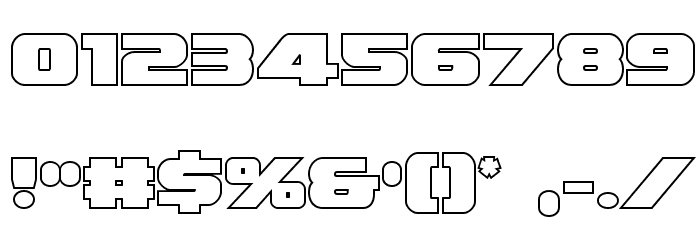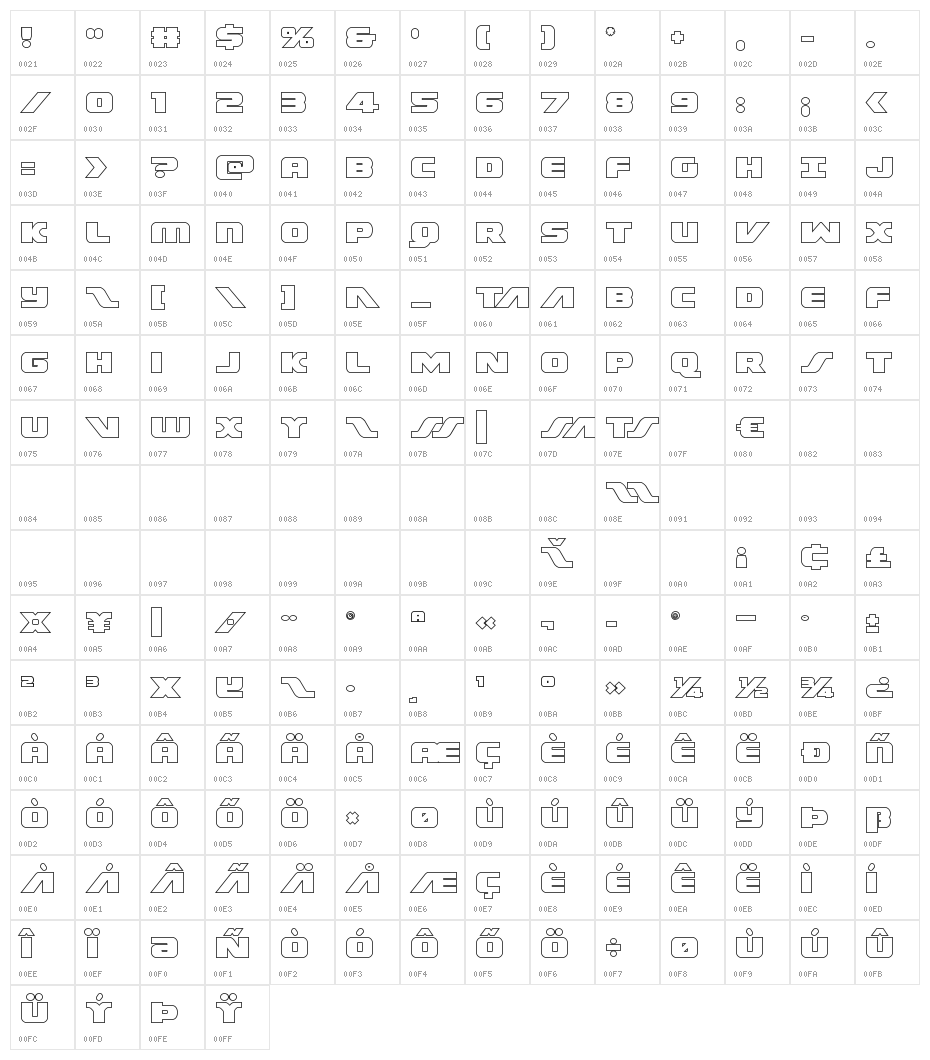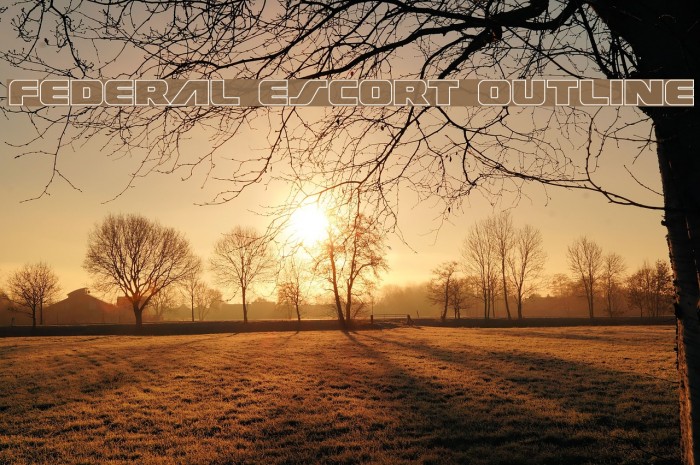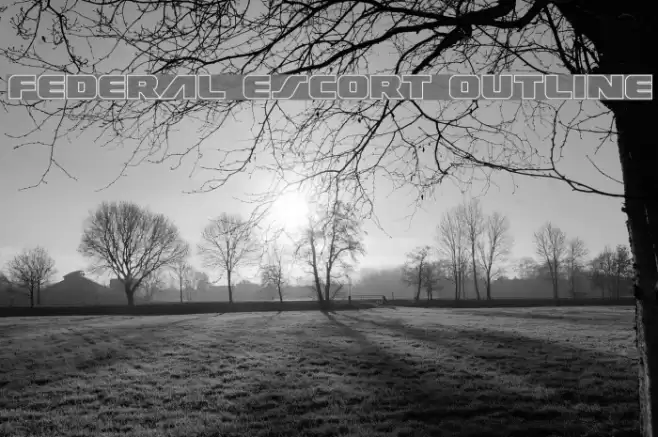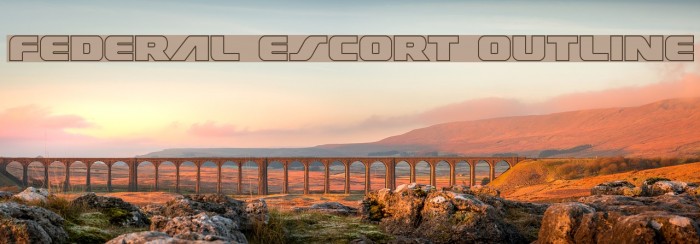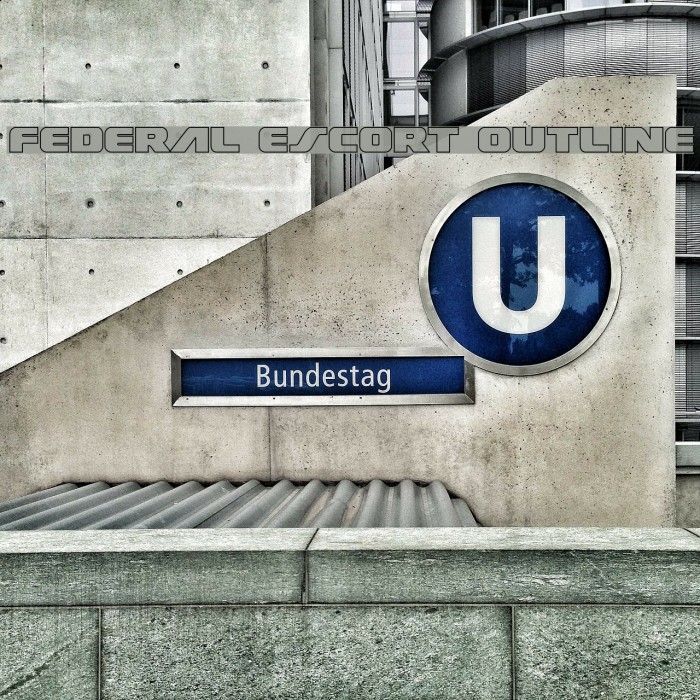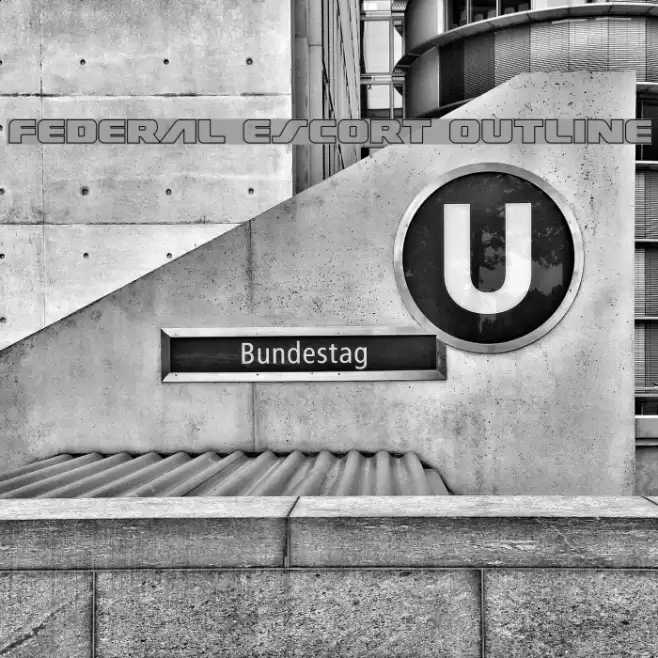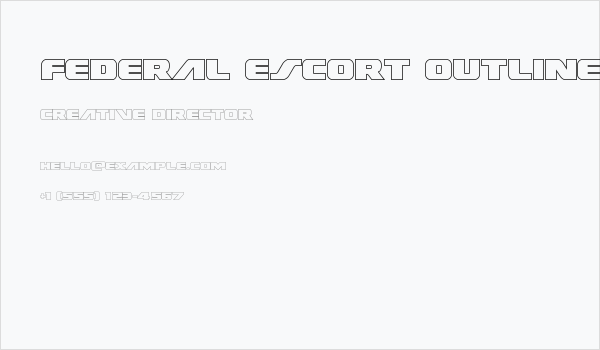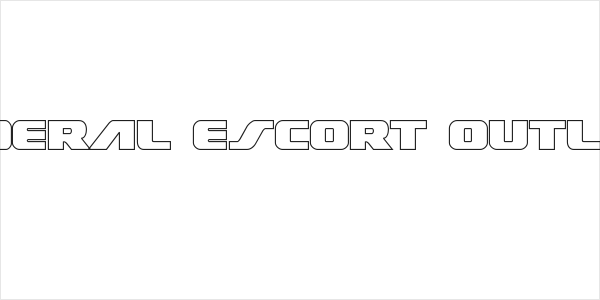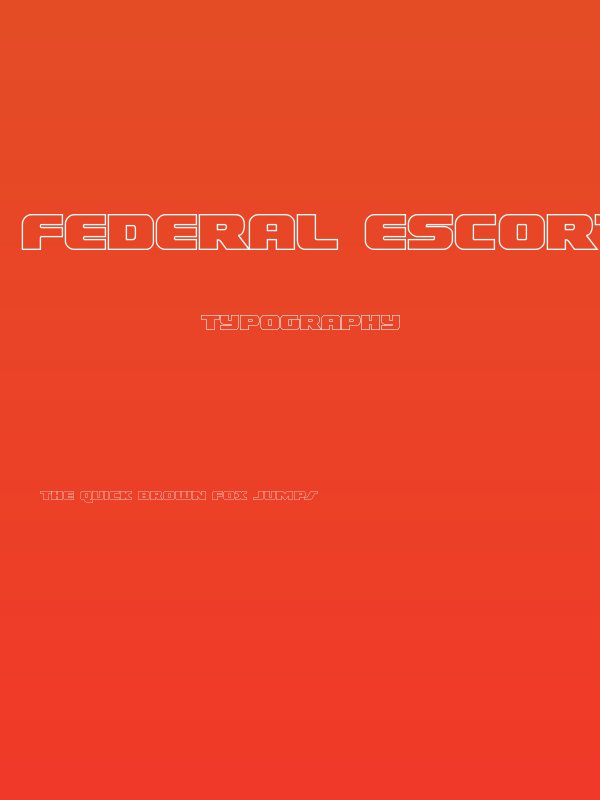
Federal Escort Outline Font
Federal Escort Outline Description
This font features a bold, geometric design with an outline style that gives it a futuristic and industrial feel. The characters are constructed with straight lines and sharp angles, creating a sense of precision and modernity. The uppercase letters are uniform in height, while the lowercase letters maintain a consistent style, enhancing readability. The numerals are distinct and align well with the overall design, making them suitable for various applications. Special characters are included, maintaining the same bold outline and geometric structure, ensuring versatility in design projects.